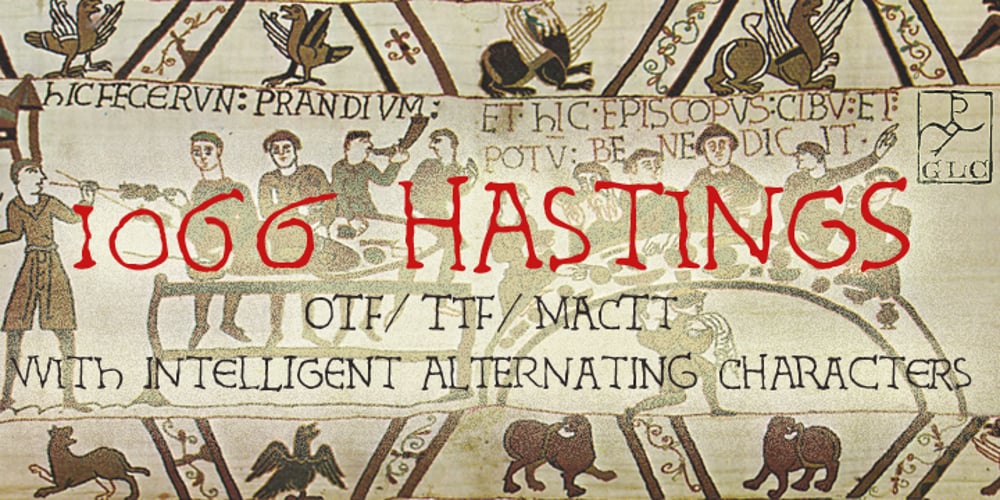
1066 Hastings
1066 Hastings font
1066 Hastings Font Family was designed by published by GLC. 1066 Hastings contains 1 styles and family package options. In 1066, William, duke of Normandy, was invading England. He was demanding the crown for himself, against King Harold the Saxon. He killed Harold and reached the crown at Hastings, the well-known battlefield. A few years later, in Bayeux (Normandy, French)was displayed a large tapestry (almost 70 m long) who was telling the story of the conquest. Along the tapestry was written a comment in Latin, using Roman capitals influenced a little by English or Scandinavian style (as it is visible in the Eth character). We have created the font, inspired from this design, adapted for contemporary users, making difference between U and V, I and J, which has not any relevance for ancient Latin scribes, and naturally with Thorn, Oslash, Lslash… and usual accented characters did not exist at the time. We also have reconstructed the K, German double s and Z, always using patterns of the time. We have scrupulously respected the poetic irregular and distressed original forms with two or three alternate for each characters, including reconstructed numerals.